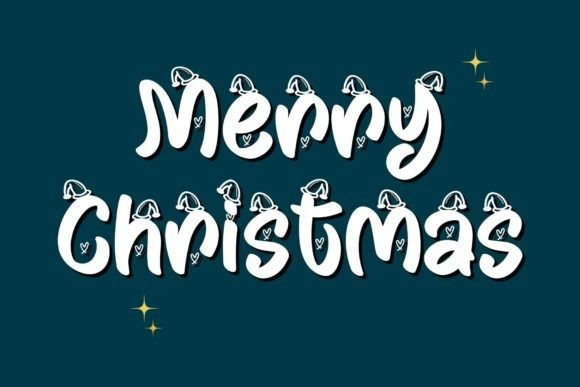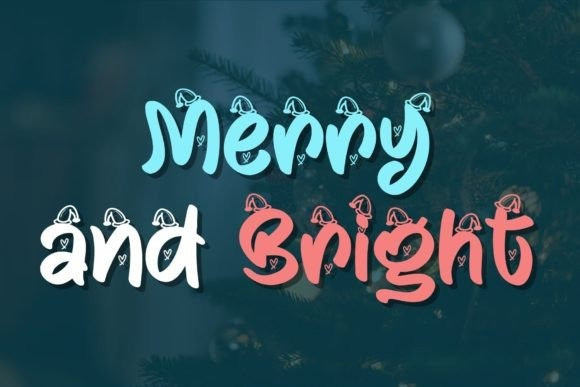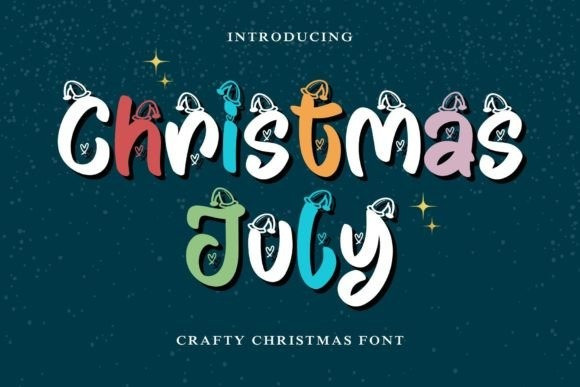
Christmas July Font
Christmas July Font This extraordinary font embodies the whimsical magic of Christmas, intricately designed in a delightful crafty style. Perfect for creating unique invitations, seasonal décor, or festive branding, Christmas July is a celebration of Yuletide warmth and cheer in typographic form.
Whether it’s merry greeting cards in December or playfully themed projects in the heat of the summer, this unique, versatile font brings the spirit of holiday charm to every creation.